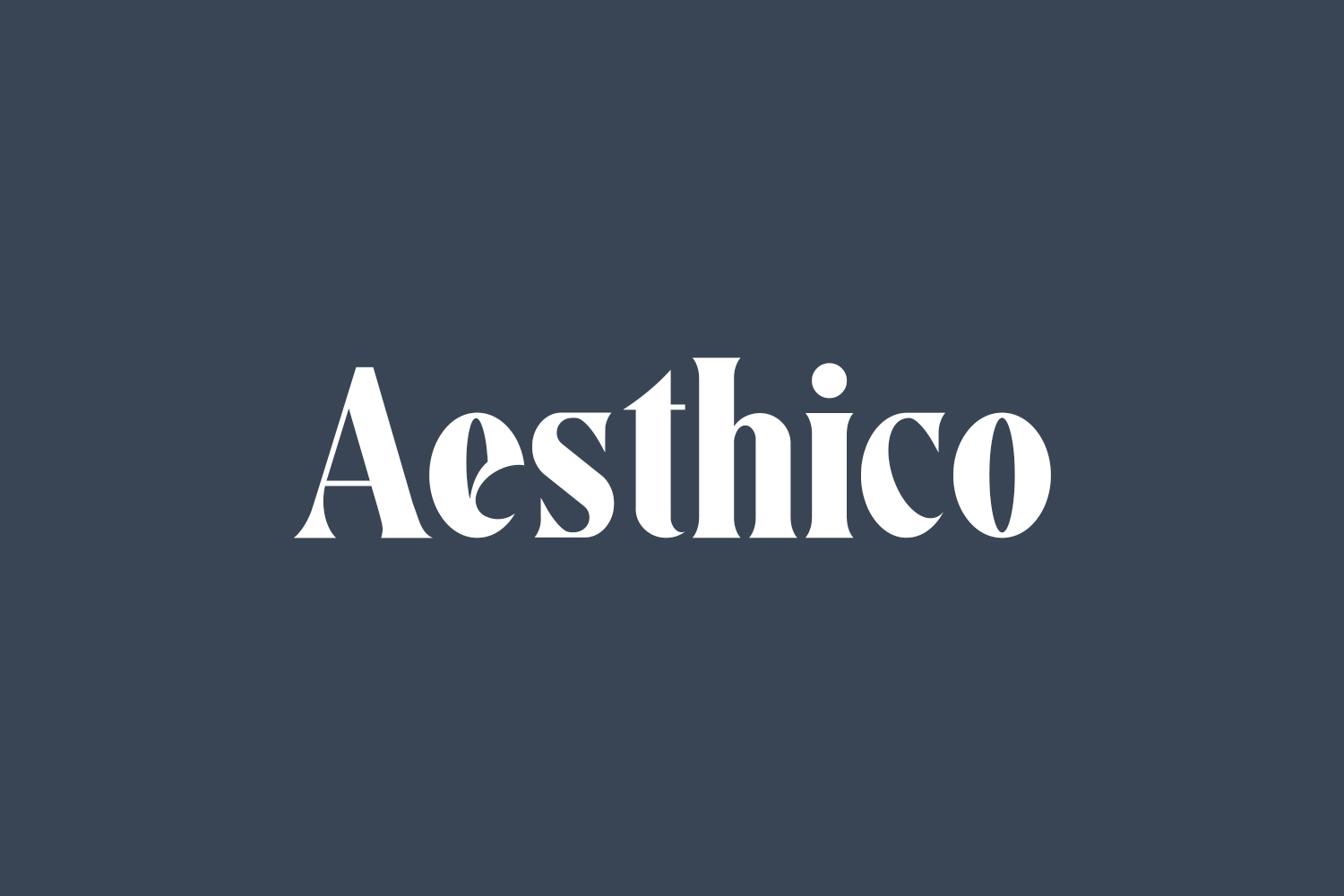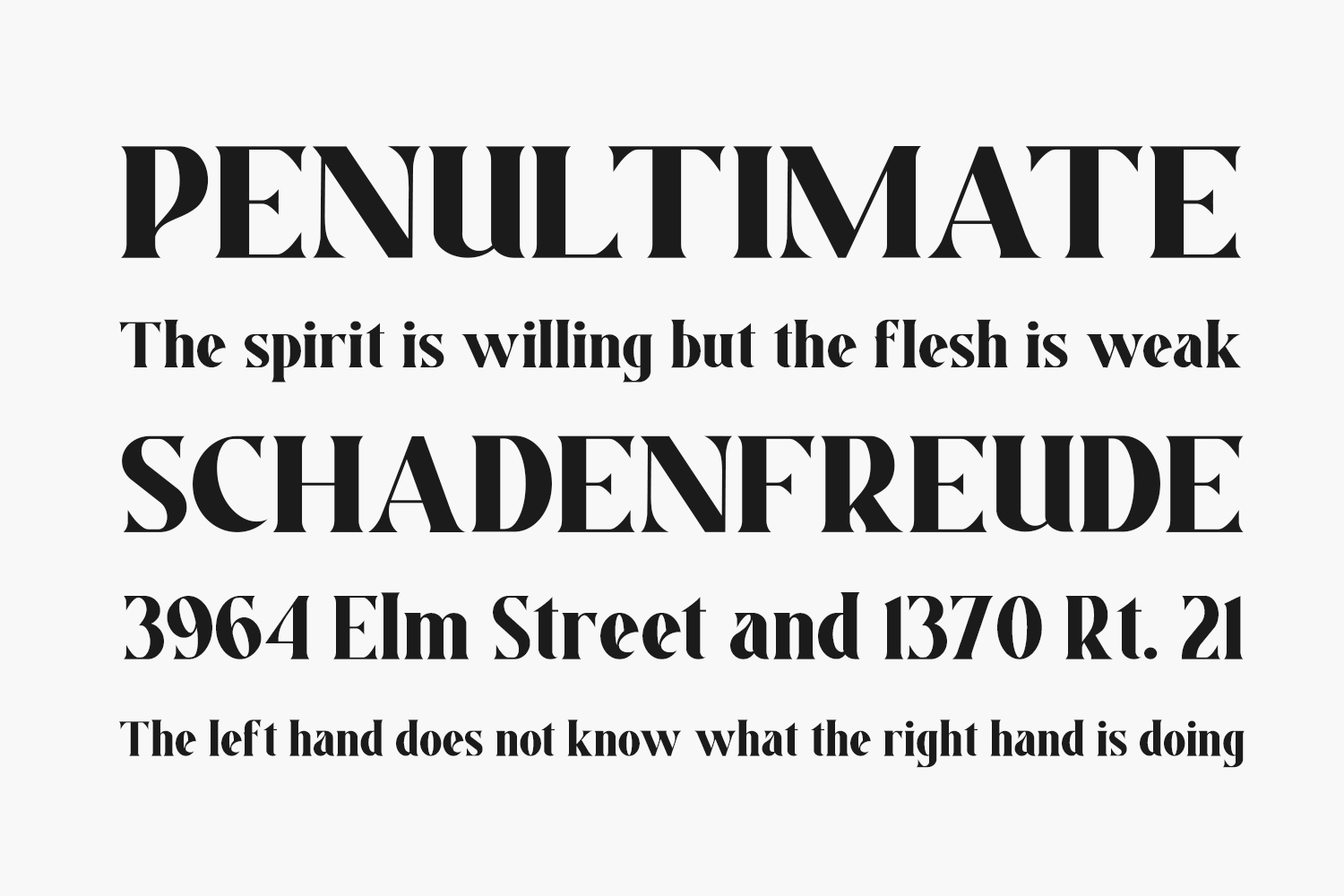
Aesthico Free Font is a sleek, sophisticated serif font infused with modern flair and inspired by renowned magazine logos. Perfect for headlines, logos, covers, posters, and a multitude of creative endeavors. Download the font for free if you need it for personal use or purchase the full version for commercial use.
Designed by Heinzel Std